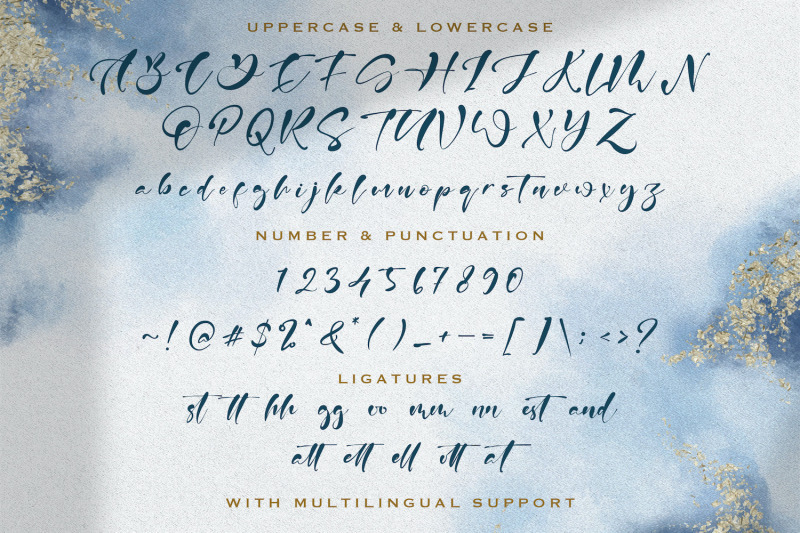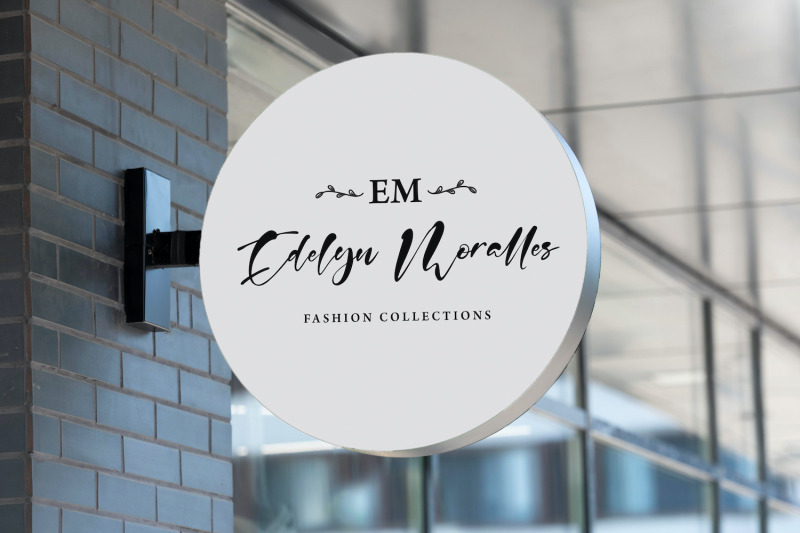
Freebie Wednesday: Anasteziya – Calligraphy Font
is an exquisite handwritten font, masterfully designed to become a true favorite. It maintains its classy calligraphic influences while feeling contemporary and fresh. Fall in love with it and bring your projects to the highest levels!